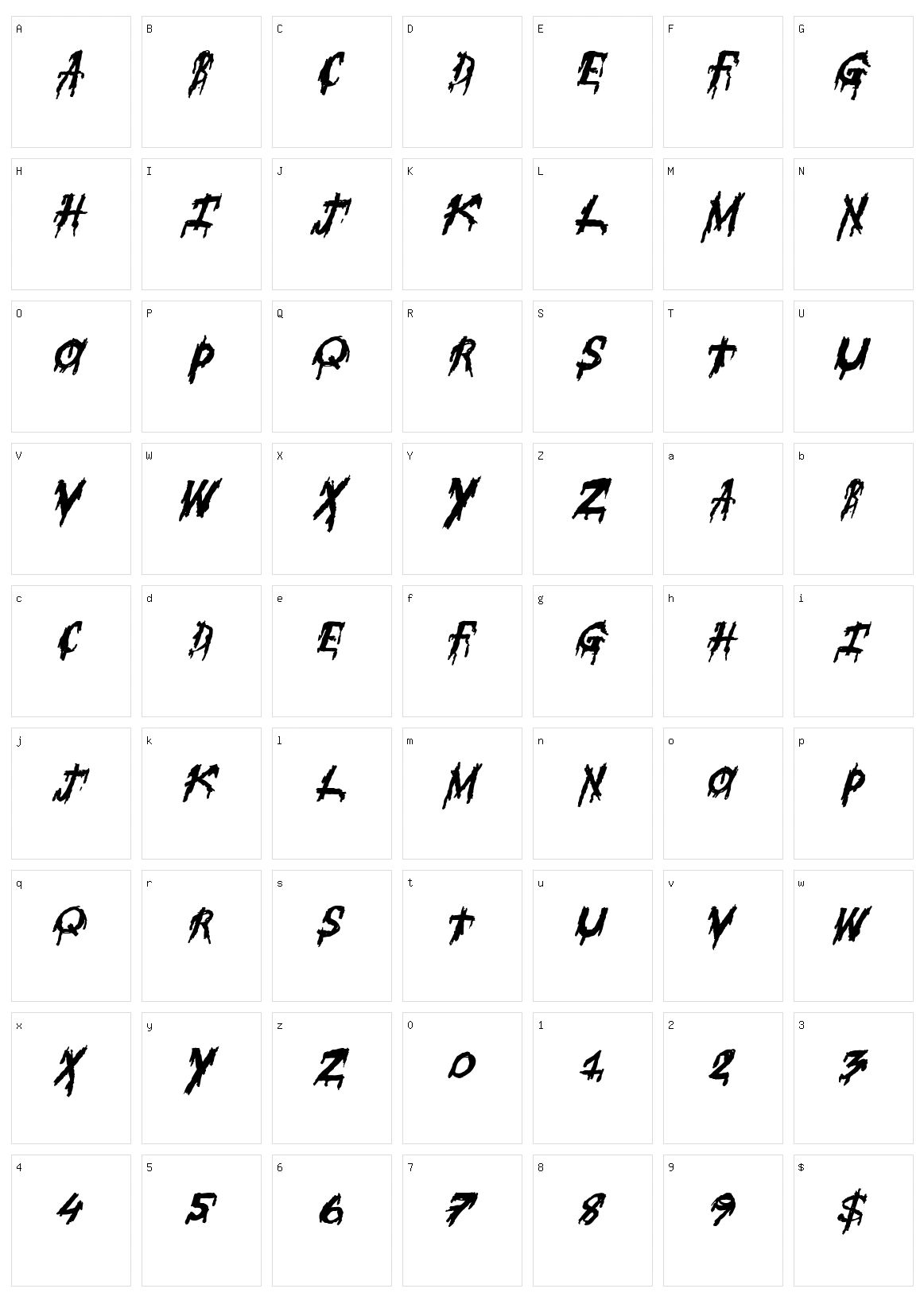
The free font Super Fear is carefully designed by Xerographer Fonts, showcasing a thoughtful balance of creativity and usability and falls under the Horror font style. When you download the ZIP file, it contains only 41.33 KB of font files, making it lightweight and quick to download. Please review the license details below to understand permitted usage and distribution rights. If license information is not available, we recommend using this font for personal projects only or contacting the author directly for commercial usage permissions.